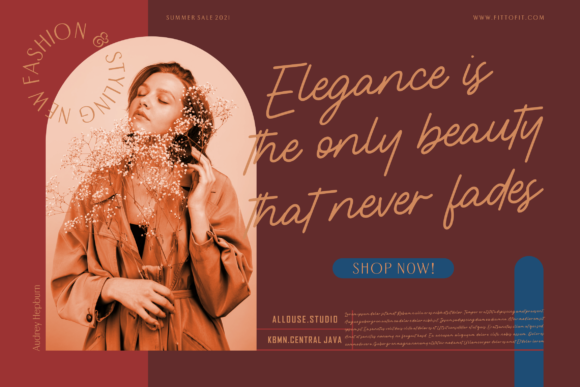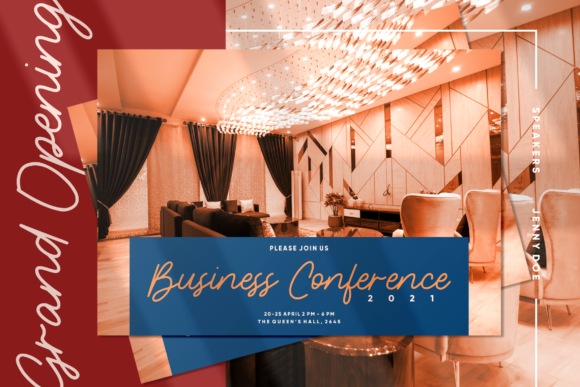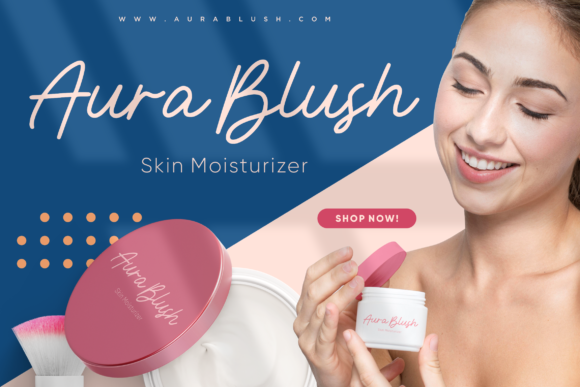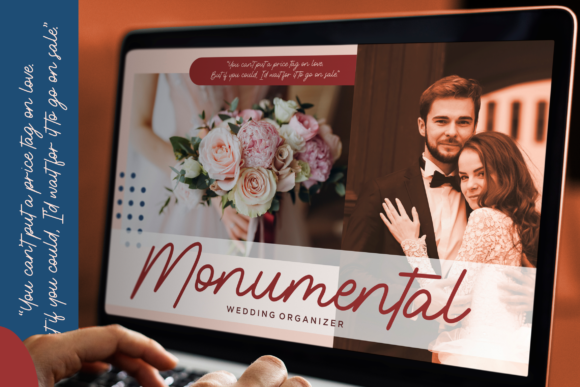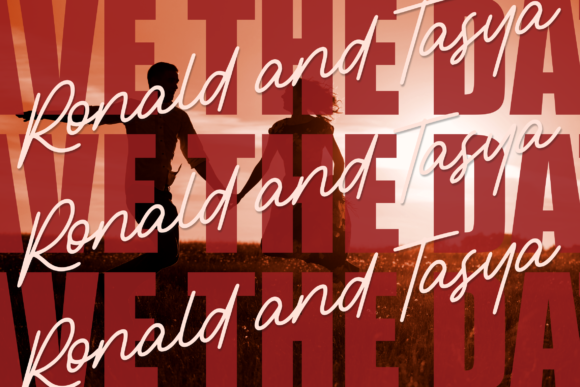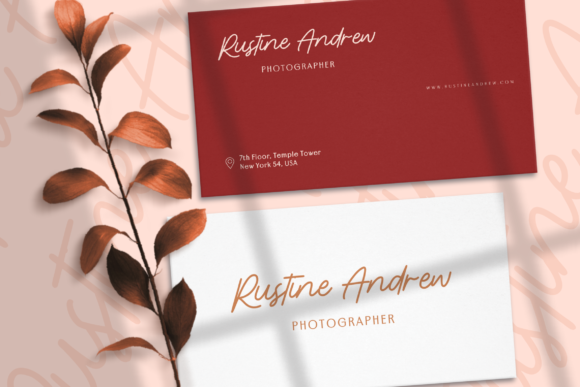
Introduction to Raya Feast Font
As a designer, there’s nothing quite like the thrill of bringing a creative project to life. The blank canvas, the endless possibilities, and the satisfaction of watching it all come together – it’s a feeling that never gets old. But sometimes, all it takes is the right font to elevate your design from good to great. That’s where the Raya Feast Font comes in – a stunning, handwritten font that adds a touch of elegance to any project.
Whether you’re working on a wedding invitation, a thank you card, or a logo, the Raya Feast Font is the perfect choice. Its high-quality design and beautiful curves make it a valuable resource for designers looking to add a personal touch to their work. And the best part? It’s available for free download, complete with a transparent background, making it easy to incorporate into any design.
Key Features of Raya Feast Font
- High-quality design: Raya Feast Font is a unique and creative project designed to meet the needs of modern designers.
- Unique characteristics: Raya Feast Font features a bold and playful style, making it perfect for creative projects that require a touch of personality.
- Perfect for various designs: This font is suitable for a wide range of designs, including logos, posters, and digital products.
Honest Review: Raya Feast Font
As a designer, I’m always on the lookout for high-quality design resources that can elevate my creative projects. The Raya Feast Font is a free download that caught my attention, and I’m excited to share my honest review.
- ✨ Unique and playful design style that adds a touch of elegance to any project
- ⚠️ Limited font variations, which might make it less versatile for some projects
Overall, I’m impressed with the Raya Feast Font’s unique design style and high-quality font files. While it may have some limitations, it’s an excellent resource for personal projects or small-scale commercial use. If you’re looking for a free and stylish font to add some flair to your creative project, the Raya Feast Font is definitely worth checking out.
Some tips for getting the most out of the Raya Feast Font include experimenting with different font sizes and combinations, using a transparent background to create a seamless design, and incorporating the font into a larger creative project. Common use cases for the Raya Feast Font include designing invitations, creating social media graphics, and developing branding materials.